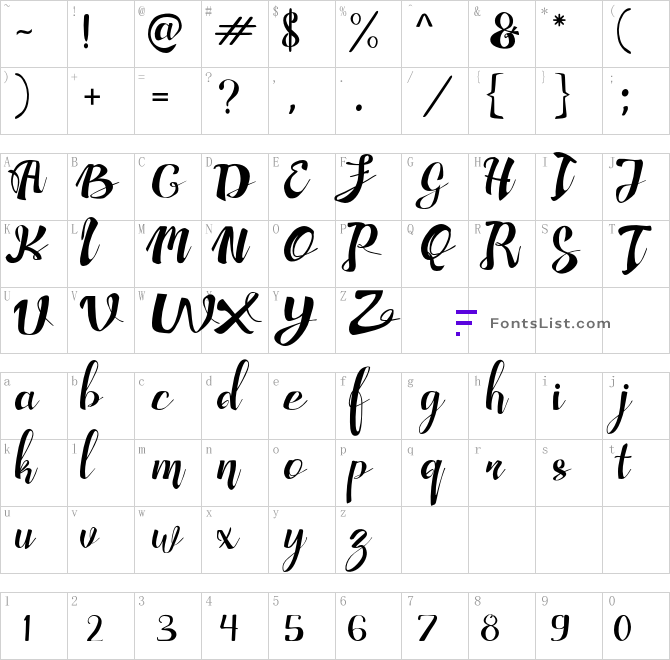
- Font Name:Adefebia Free Font
AdefebiaFreeFont.otf is a very beautiful artistic font, AdefebiaFreeFont.otf is widely used in the design and printing of various books and pictures,AdefebiaFreeFont.otf has a strong visual impact,AdefebiaFreeFont.otf is a commonly used font in newspapers, magazines and books, and is used in posters, e-commerce Poster design, store design, logo design, font design and other fields.AdefebiaFreeFont.